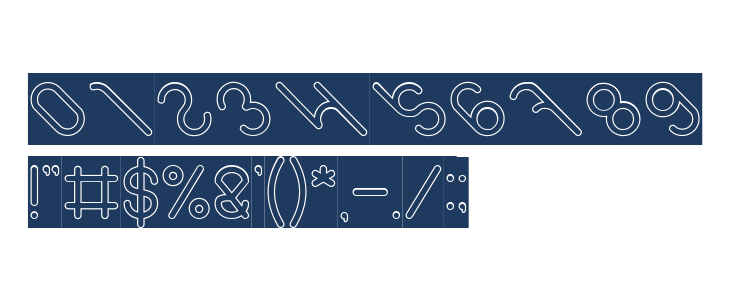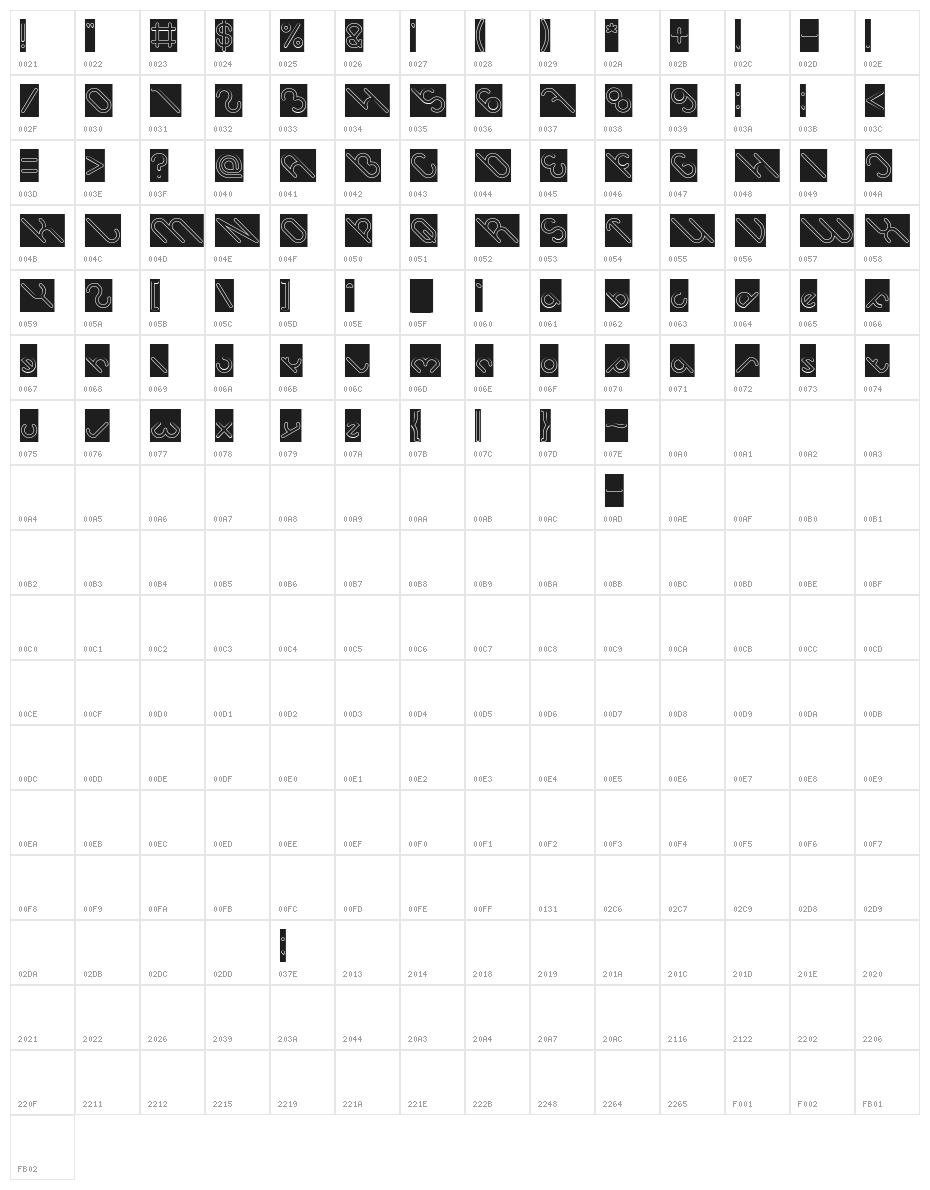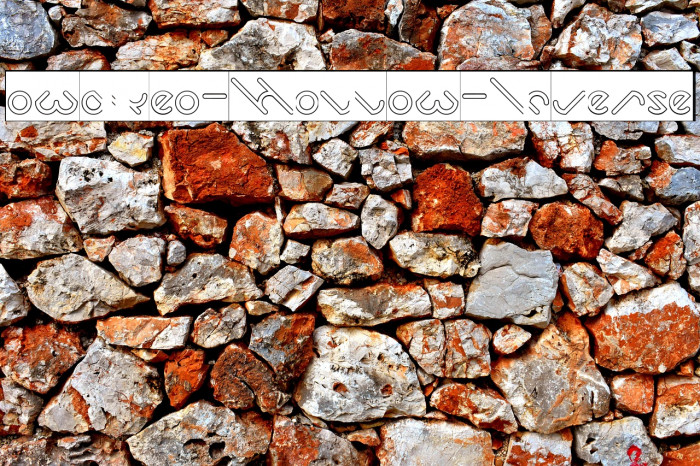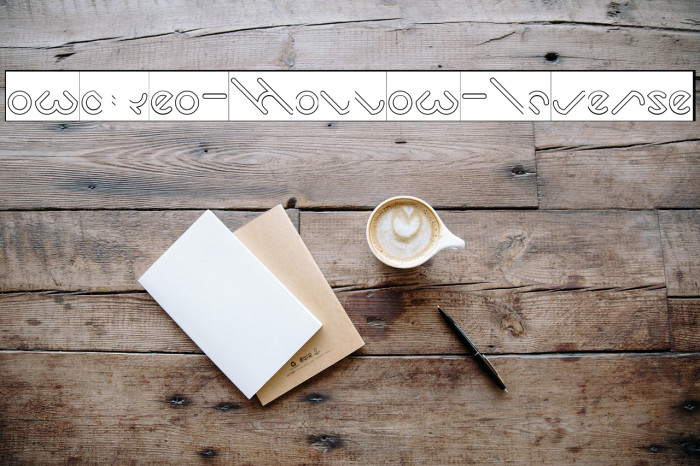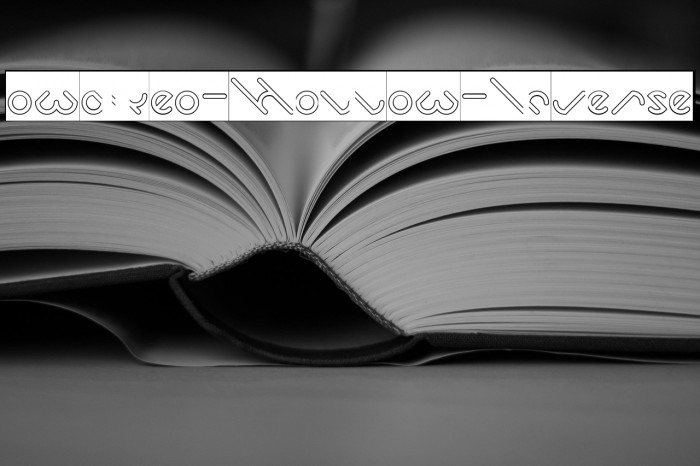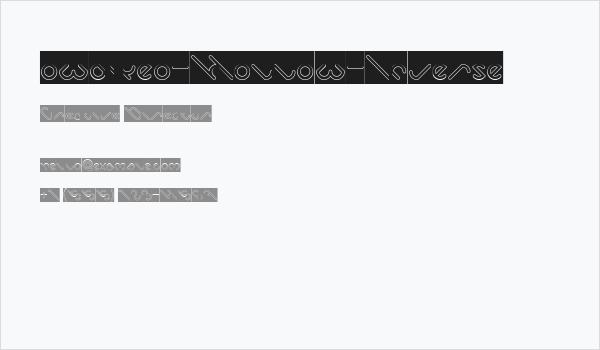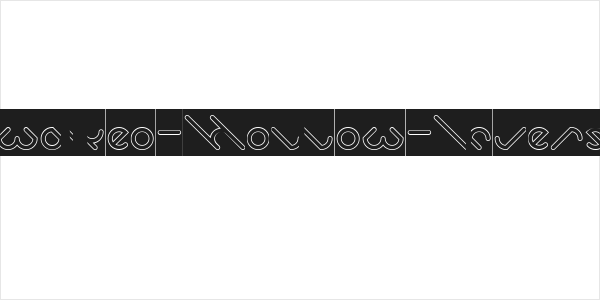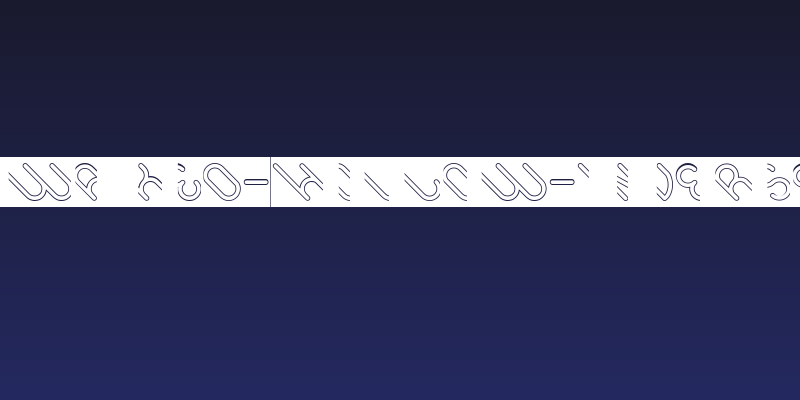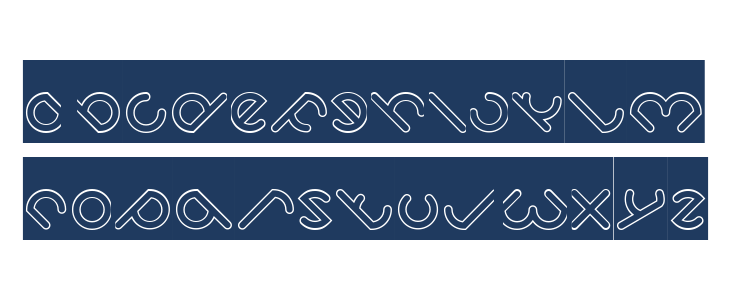
owaikeo-Hollow-Inverse Font
owaikeo-Hollow-Inverse Description
This font features a unique hollow design with an inverse style, where the interior of each character is cut out, creating a striking visual effect. The lines are smooth and rounded, giving it a modern and futuristic appearance. The uppercase and lowercase letters maintain a consistent style, with a playful and artistic flair. Numbers and special characters follow the same design principles, ensuring uniformity across all glyphs. This font stands out due to its creative use of negative space, making it ideal for projects that require a bold and innovative look.